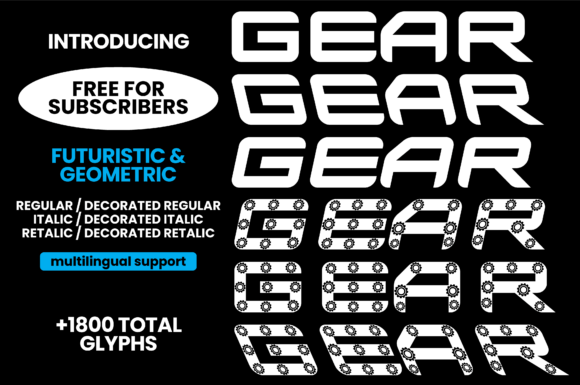
The Perfect Gear for Your Design Toolbox
Have you ever stared at a blank page, trying to bring a vision to life, only to be hindered by the wrong font? The frustration is real, but what if you had the perfect tool to elevate your design game?
Enter Gear Font, a masterfully crafted sans serif grotesque font collection that embodies the essence of German and Swiss design principles. With its clean, bold, and geometric architecture, Gear presents a versatile portfolio of styles that will help you tackle any design project with confidence.
As a designer, you know how crucial the right font can be in conveying your message. Gear Font’s smooth, poised lines and agile flexibility make it an invaluable addition to your design toolbox, perfect for creating a lasting impression on luxury packaging, magazine facades, and more.
Gear Font Key Features
- Unique Character Set: The font features a unique set of mechanical and industrial-inspired glyphs, with 240 characters in the basic character set and 720 characters in the extended character set
- Font Style Variations: Gear Font is available in 3 font styles: Regular, Bold, and Italic, allowing for a range of design possibilities
- Language Support: Supports a wide range of languages, including Latin, Cyrillic, Greek, and more, making it suitable for international design projects
- Font Weight: Features 9 font weights, from Hairline to Black, providing a high degree of customization and flexibility
Gear Font Review
Overall, Gear Font is a solid addition to any designer’s toolkit. The font’s industrial and modern aesthetic is perfect for projects that require a rugged, tech-savvy feel. ✨
I particularly like how Gear Font offers a range of styles and weights, allowing for a lot of flexibility in terms of design applications. The font’s clean lines and sans-serif design make it easy to read and use in both digital and print media.
- Industrial and modern aesthetic ✨
- Range of styles and weights ✨
- Clean lines and sans-serif design ✨
- Easy to read and use in digital and print media ✨
- Some users may find the font too bold or overwhelming ⚠️
- Limited script or cursive options ⚠️
- Not ideal for projects that require a more traditional or elegant feel ⚠️
Overall, Gear Font is a great choice for designers who need a modern and industrial font. While it may have some limitations, the font’s flexibility and clean design make it a valuable addition to any toolkit.
Tips for Getting the Most Out of Gear Font
1. Use Gear Font for titles and headings to add a touch of industrial chic to your designs.
2. Experiment with different font sizes and styles to create visual interest.
3. Pair Gear Font with other fonts to create a unique and eye-catching typography.
1. Industrial and technical designs.
2. Retro-style graphics and posters.
3. Fashion and lifestyle branding.